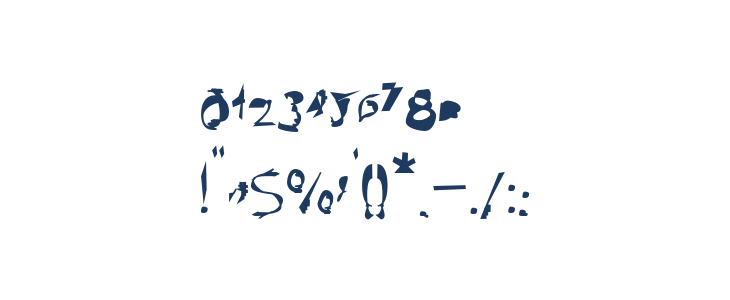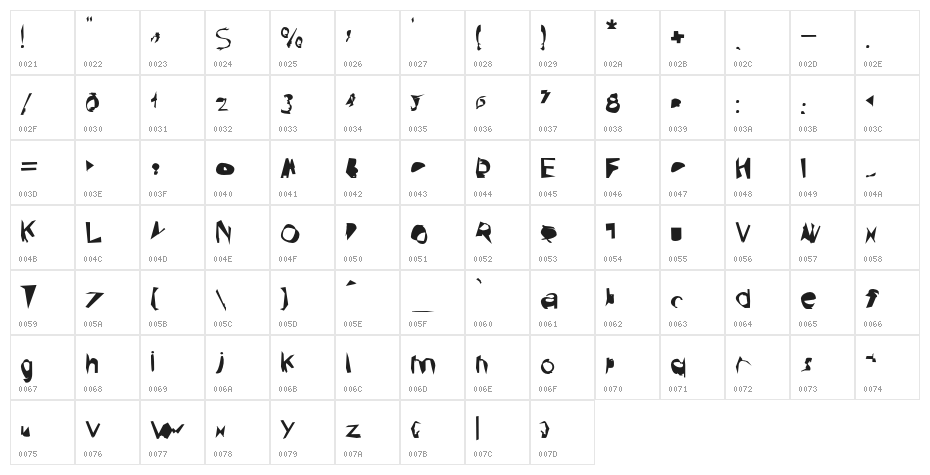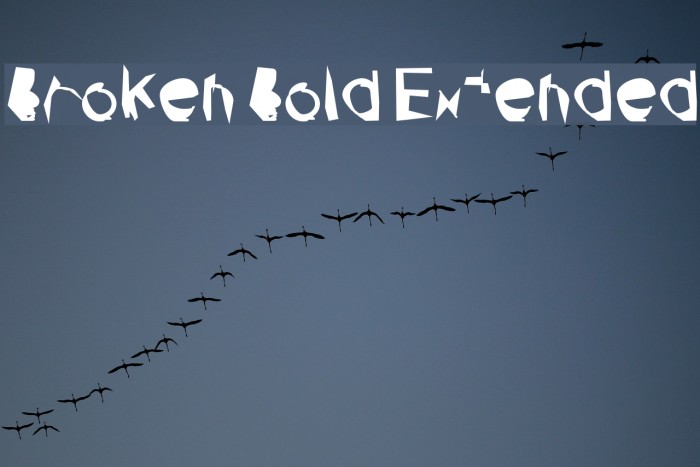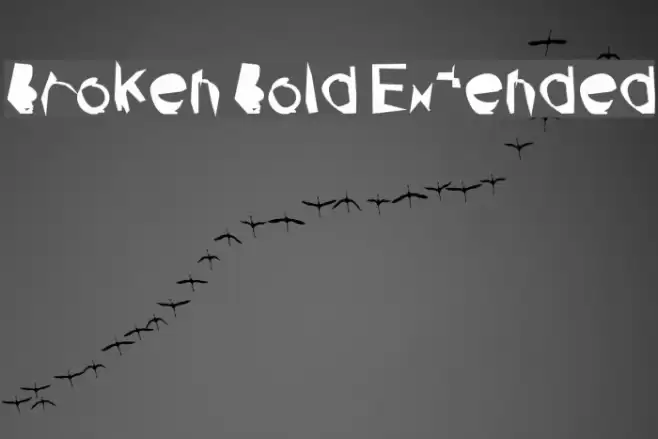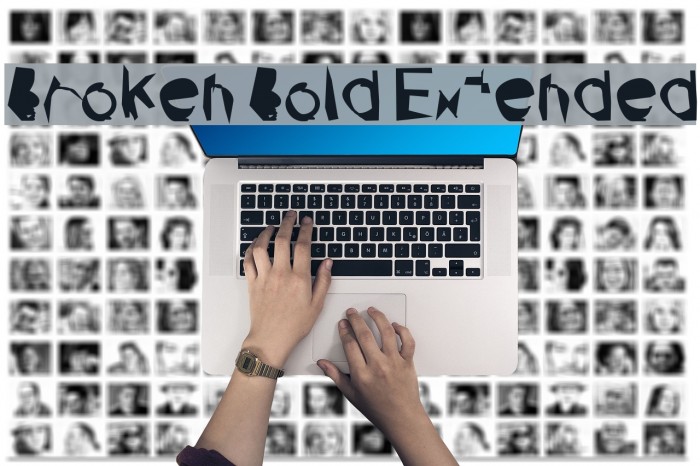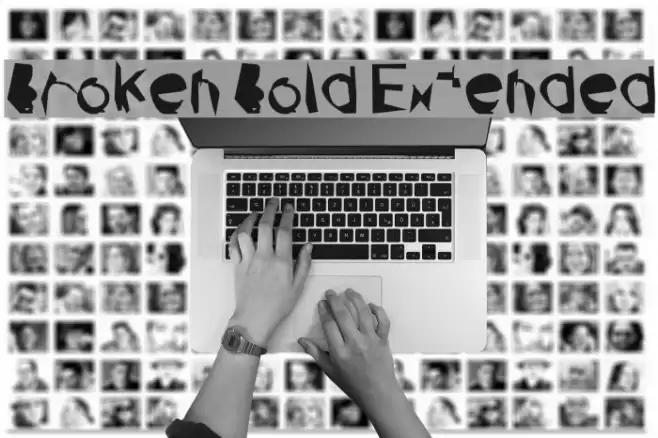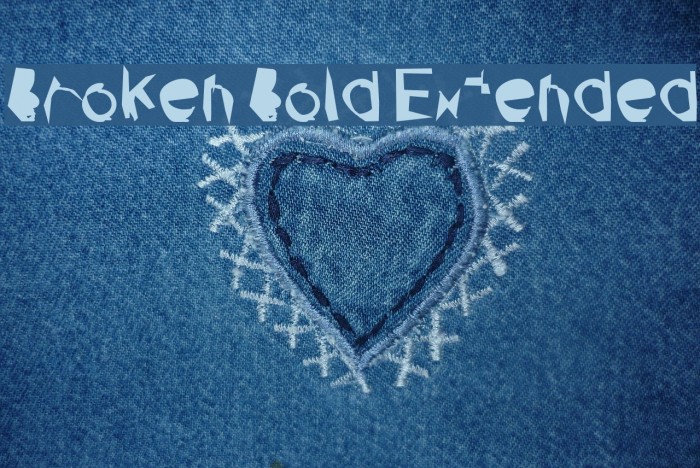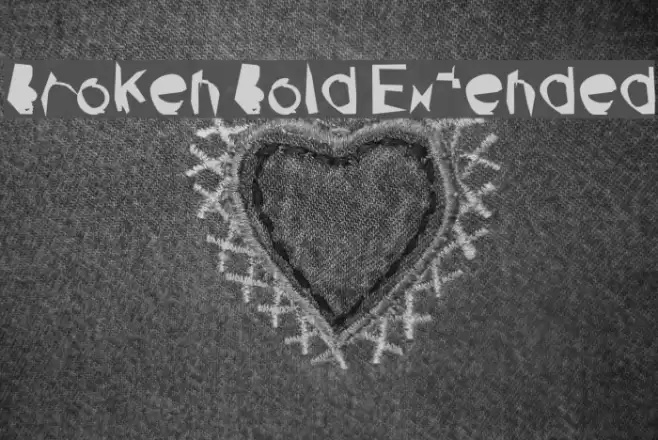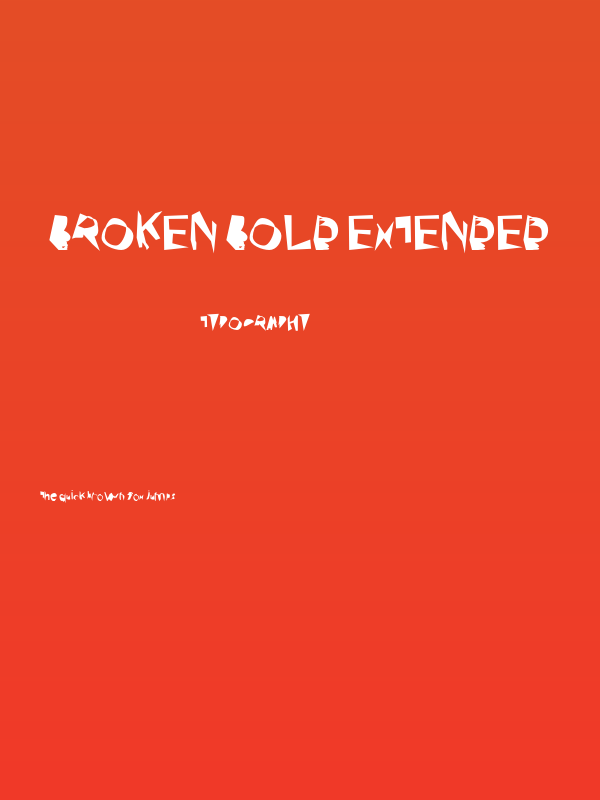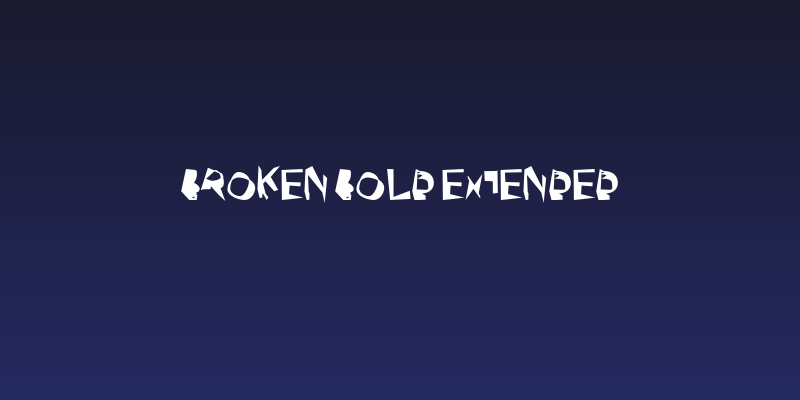
Broken Bold Extended Font
Broken Bold Extended Description
This font features a bold and extended style with a distinctly fragmented and abstract appearance. Each character is composed of sharp, angular shapes that give the font a chaotic yet artistic look. The uppercase and lowercase letters maintain a consistent broken pattern, creating a sense of disarray while still being legible. Numbers and special characters follow the same design principles, adding to the overall cohesive aesthetic. The font's unique style makes it stand out, ideal for projects that require a bold statement or an edgy, modern feel.
| Overall Style | Modern, Abstract |
| Proposed Projects | Ideal for album covers, modern art posters, edgy branding, and creative advertising campaigns. |